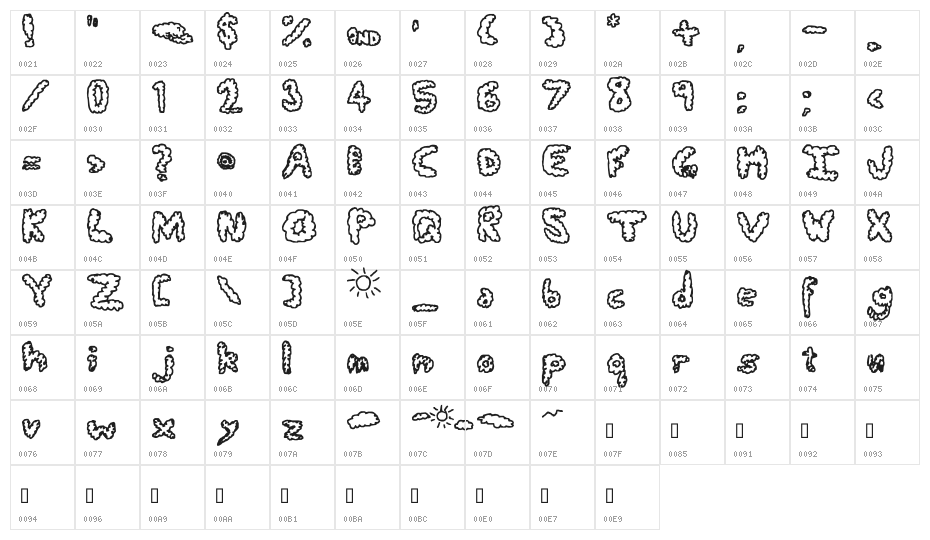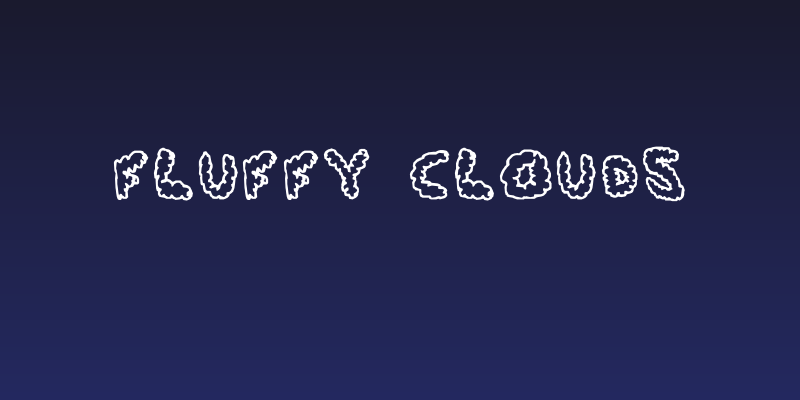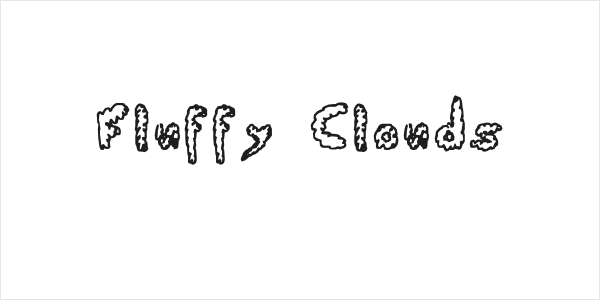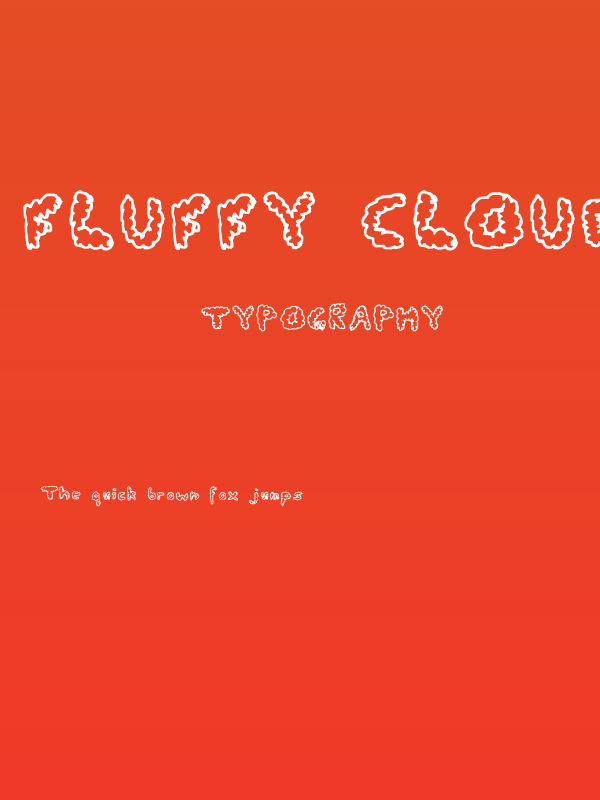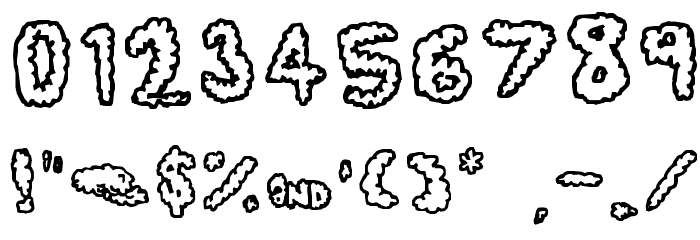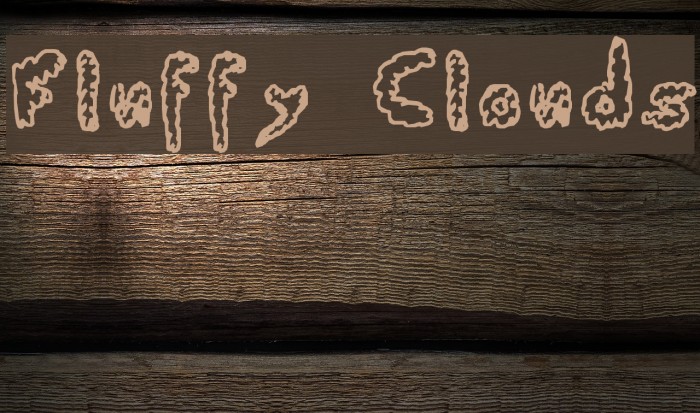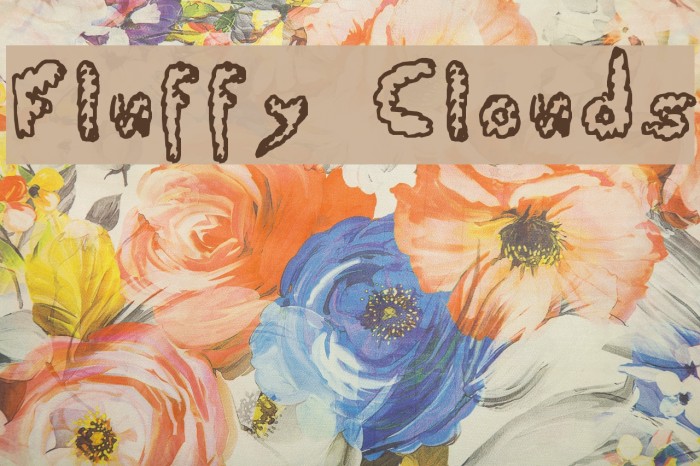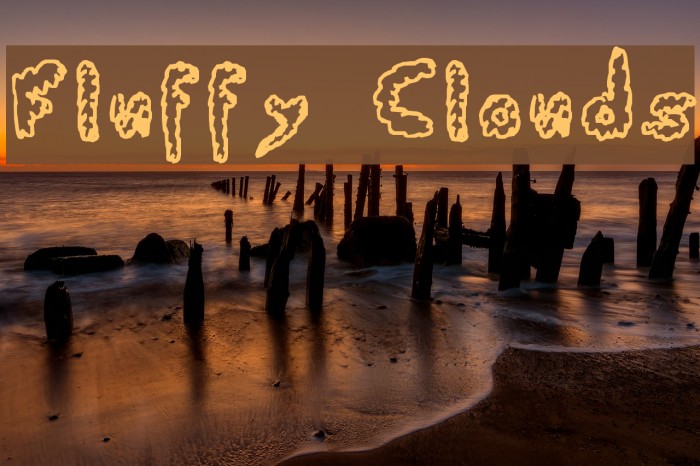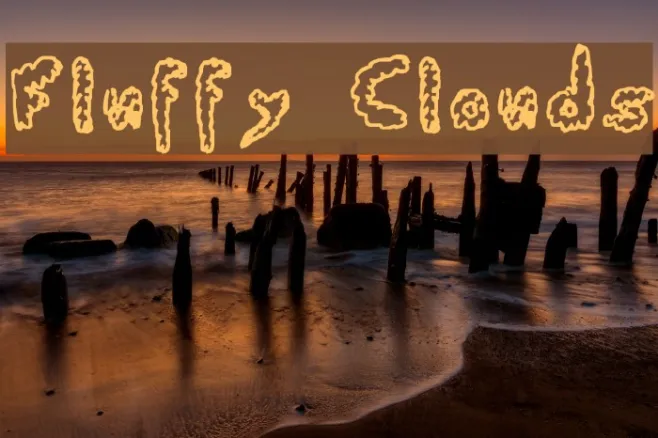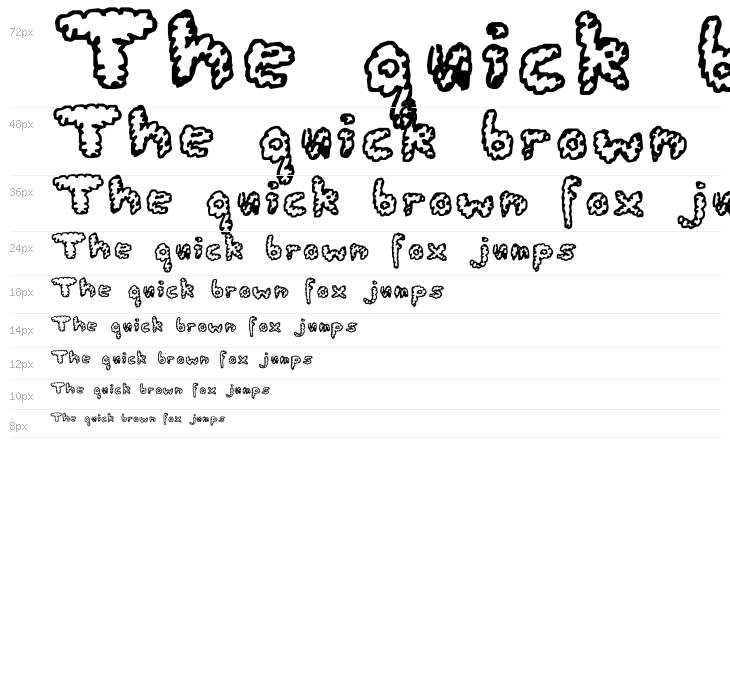
Fluffy Clouds Font
Fluffy Clouds Description
This playful and whimsical font features characters that resemble fluffy clouds, giving it a light and airy feel. Each letter is outlined with a bold, irregular edge that mimics the soft, rounded shapes of clouds. The font maintains a consistent thickness throughout, with a slightly uneven texture that adds to its charm. The uppercase and lowercase letters are distinct yet harmonious, while the numerals and special characters maintain the same cloud-like aesthetic. This font is perfect for projects that require a fun and imaginative touch.
| Overall Style | Whimsical |
| Proposed Projects | Ideal for children's books, playful branding, greeting cards, and whimsical posters. |